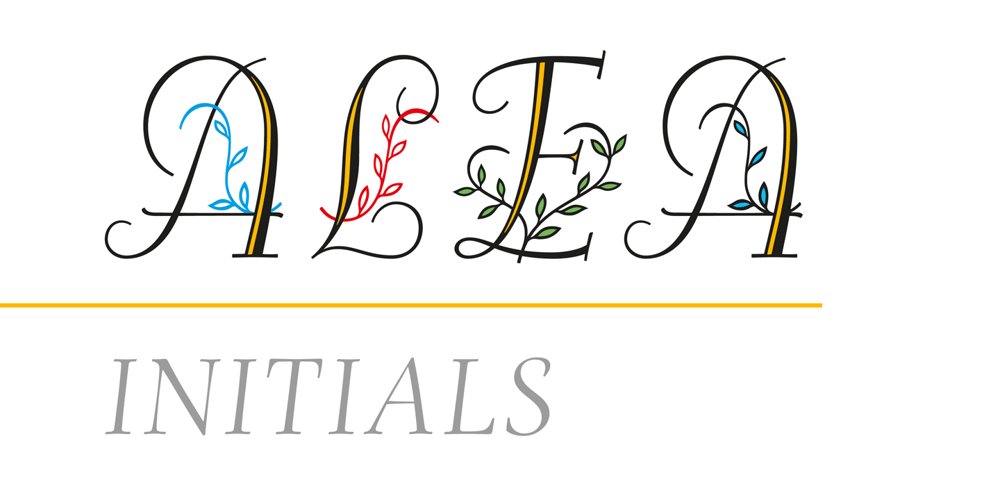
Alea
Alea font
Alea Font Family was designed by Maria Ballé, Andreas Seidel and published by astype. Alea contains 1 styles and family package options. Alea is based on the drawings of Maria Balle. The floral, organic look of these bastard script initials will play well together with nearly all Didone designs and will give them a special note. Alea works perfectly with the Adana fonts also available from astype. The Opentype features Superior, Inferior & Numerator will activate the filling objects. Use these features on a new layer and choose your color to get up to three color layers.